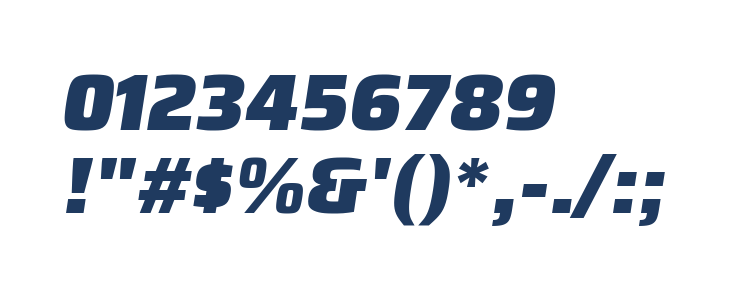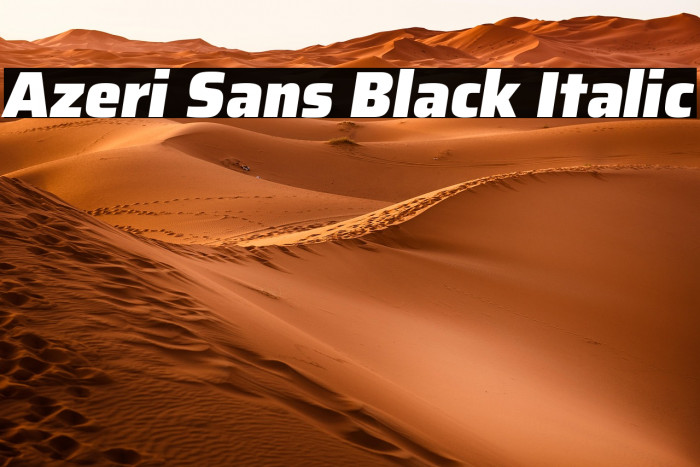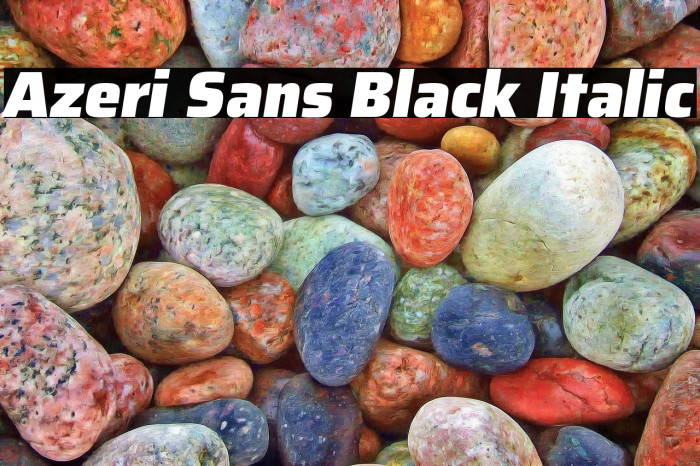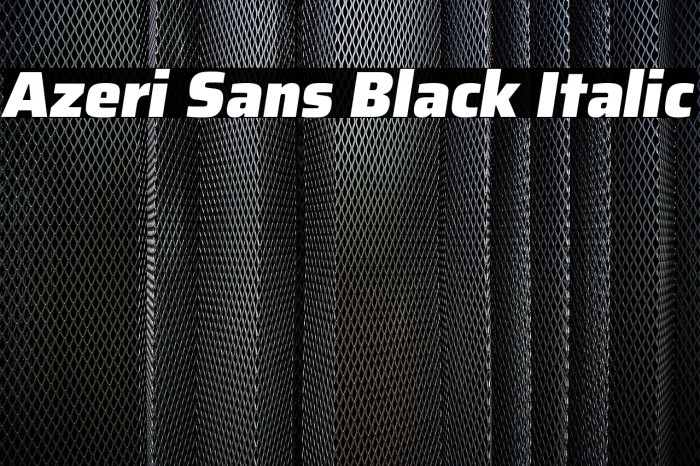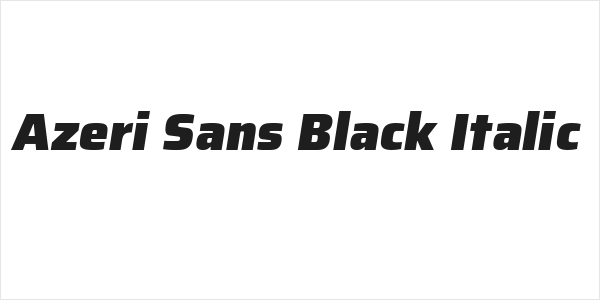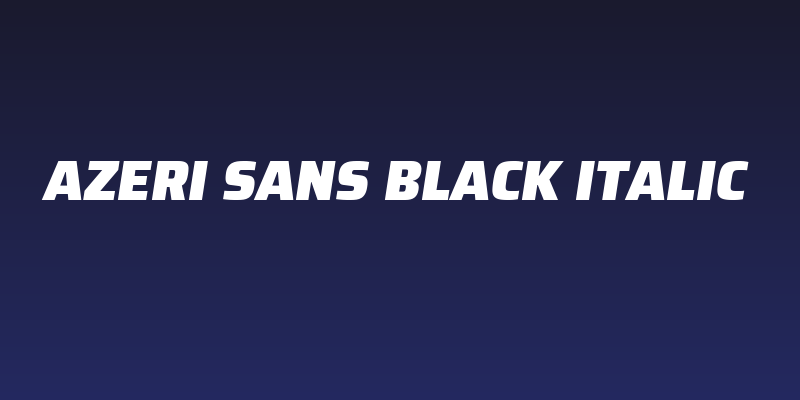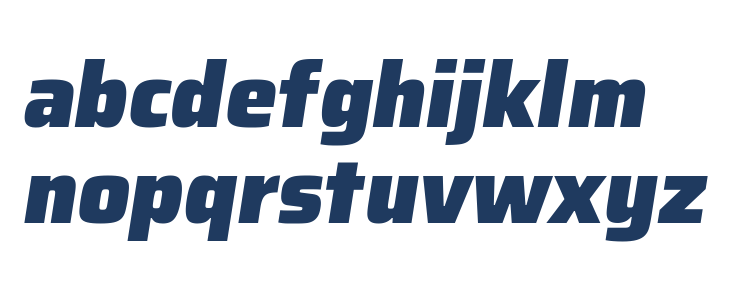
Azeri Sans Black Italic Font
Azeri Sans Black Italic Description
This font features a bold and dynamic style with a strong presence. The letters are italicized, giving them a forward-leaning, energetic appearance. The strokes are thick and consistent, contributing to a robust and impactful look. The characters are well-defined with a modern sans-serif design, making them highly legible. The spacing between characters is tight, enhancing the compact and cohesive feel of the text. This font is suitable for making a statement, with its high contrast and bold weight, ensuring that it stands out in any design.
| Proposed Projects | Ideal for headlines, posters, branding, and advertising where a bold statement is needed. |